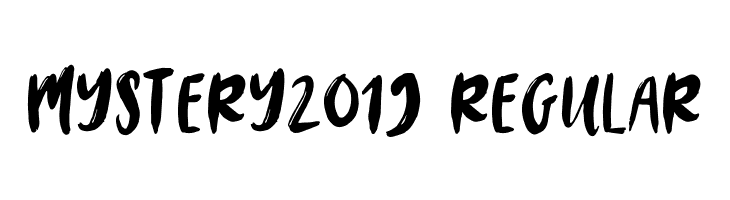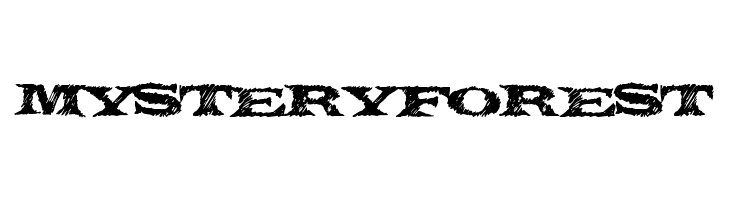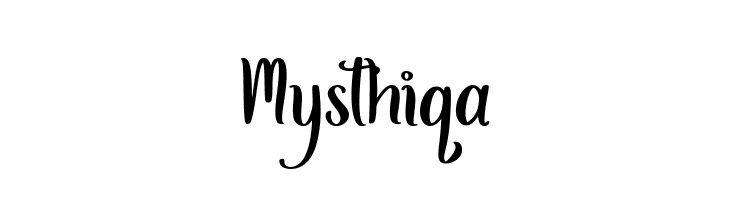
• MYSTERY2019-Regular schriftart
A bold, brush-style font with an energetic and handcrafted appearance.
• MYSTERY2019-Regular schriftart
A bold, brush-style font with a dynamic and artistic flair.
• MysteryForest schriftart
A rugged, textured font with a natural, wild aesthetic.
• Mysthics Free schriftart
A playful and flowing handwritten font with smooth curves and charming variability.
• Mysthiqa schriftart
A playful, artistic script font with a handwritten feel and dynamic strokes.
• Mystic Angel schriftart
A whimsical and elegant cursive script font with flowing, graceful lines.
• Mystic Crystal schriftart
A dynamic and elegant script font with flowing, cursive letterforms.
• Mystic Darling schriftart
A whimsical and elegant script font with a playful yet sophisticated style.
• Mystic Etchings Normal schriftart
• Mystic Forest Free Trial schriftart
A textured, brush-like font with a mystical and dynamic style.